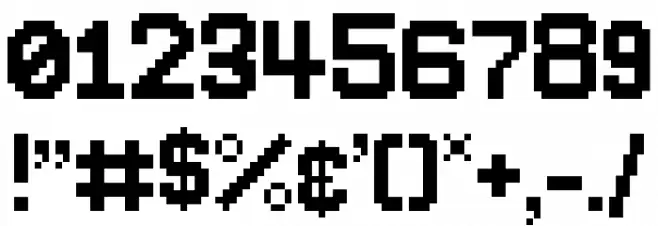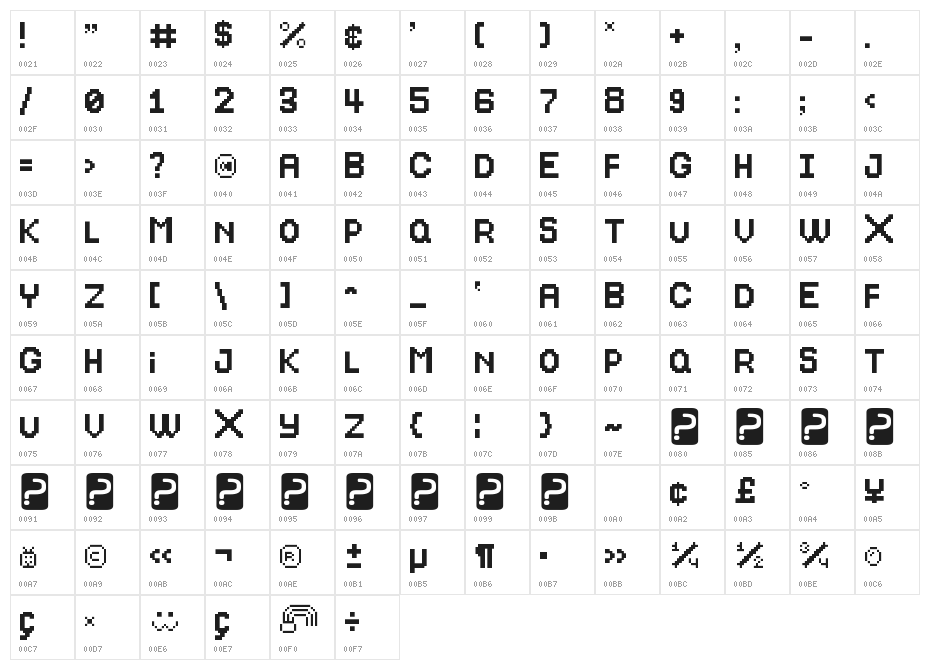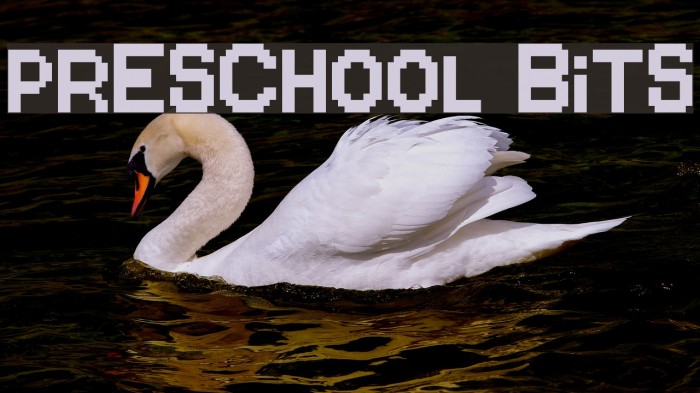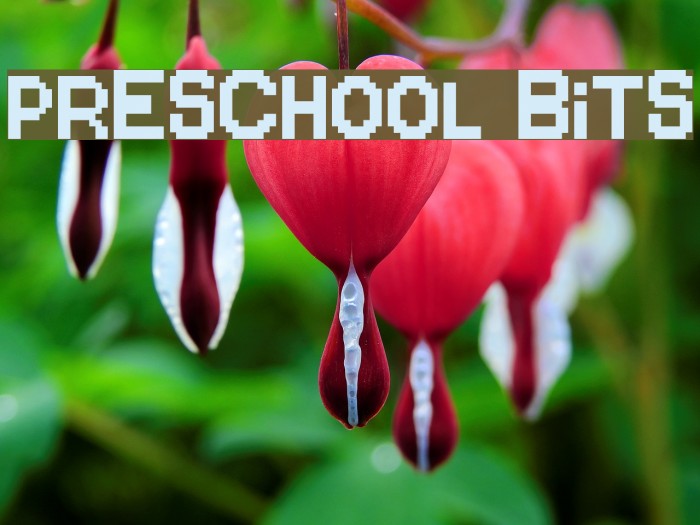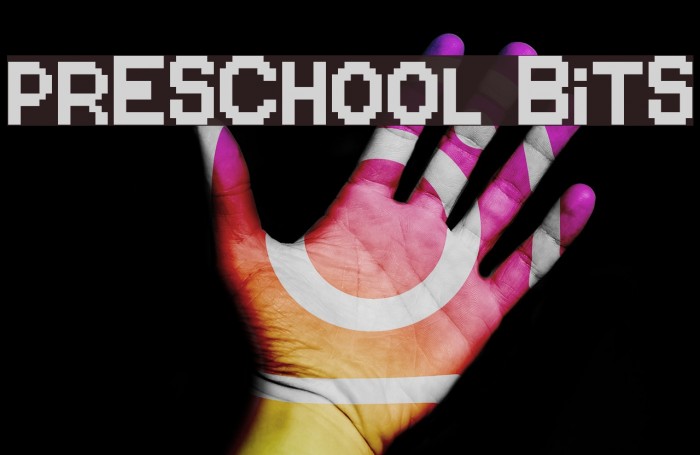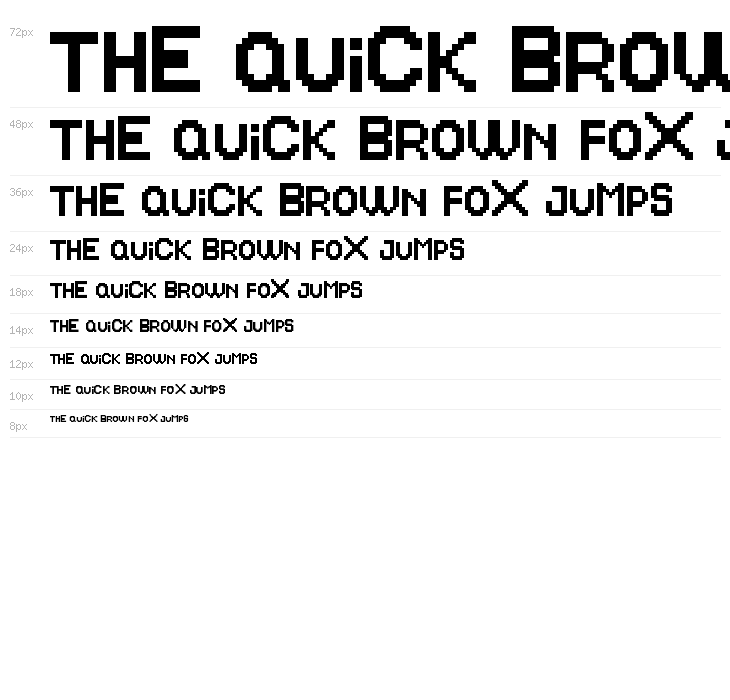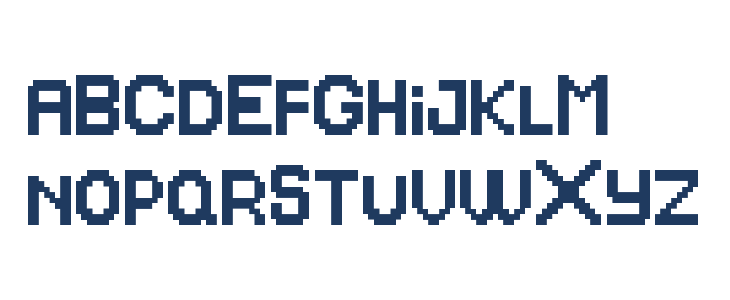
Preschool Bits Font
Preschool Bits Description
This font features a pixelated, blocky style reminiscent of early digital or video game typography. Each character is composed of square blocks, giving it a distinctly retro and digital feel. The uppercase and lowercase letters maintain a consistent height, contributing to a uniform appearance. Numbers and special characters follow the same pixelated design, ensuring a cohesive look across all glyphs. The font's simplicity and geometric structure make it highly legible, even at smaller sizes. Its nostalgic aesthetic is perfect for projects that aim to evoke a sense of classic gaming or digital nostalgia.
A pixelated, blocky font with a retro digital aesthetic from Uncategorized fonts.
- Proposed Projects: Ideal for video game design, retro-themed posters, digital art projects, and educational materials for children.
- Overall Style: Retro
- Use Case: Headlines, Logos, Digital Art